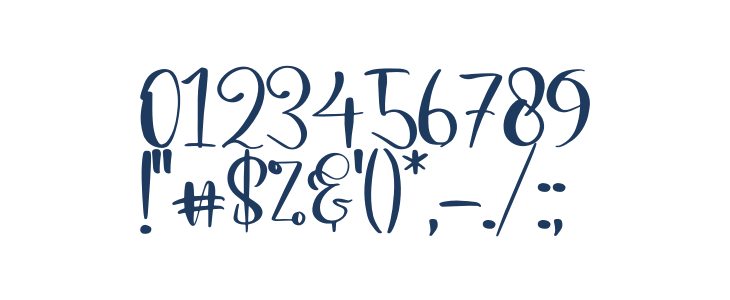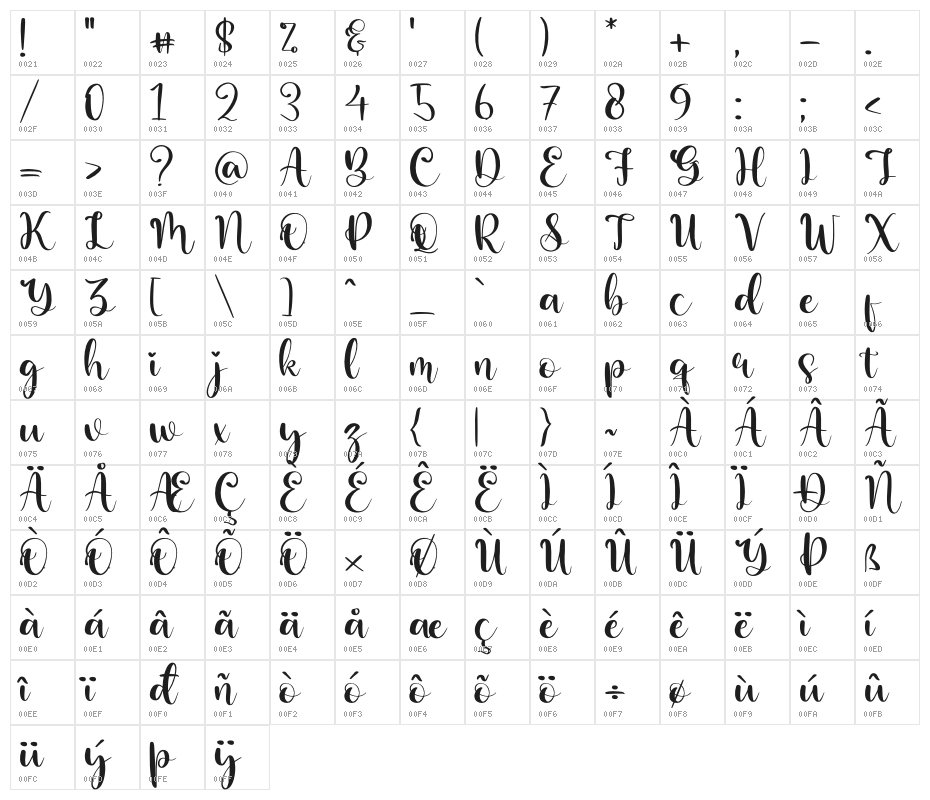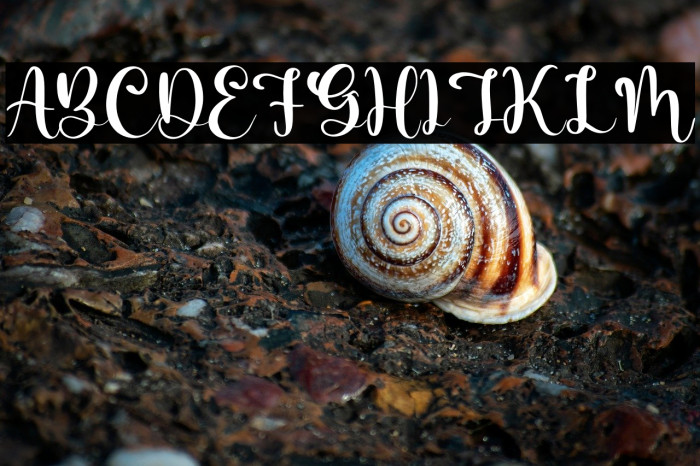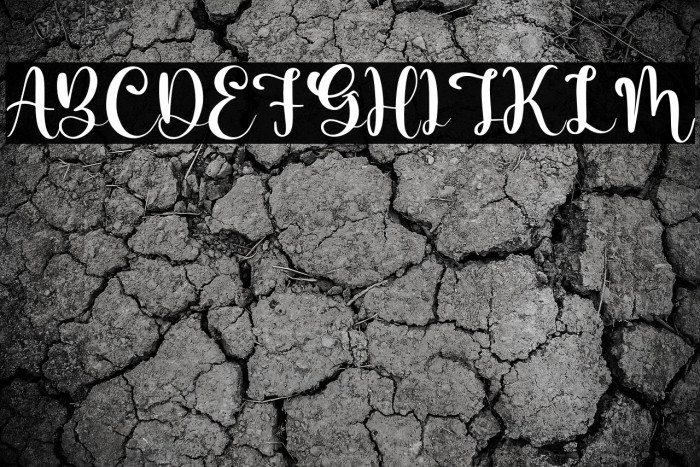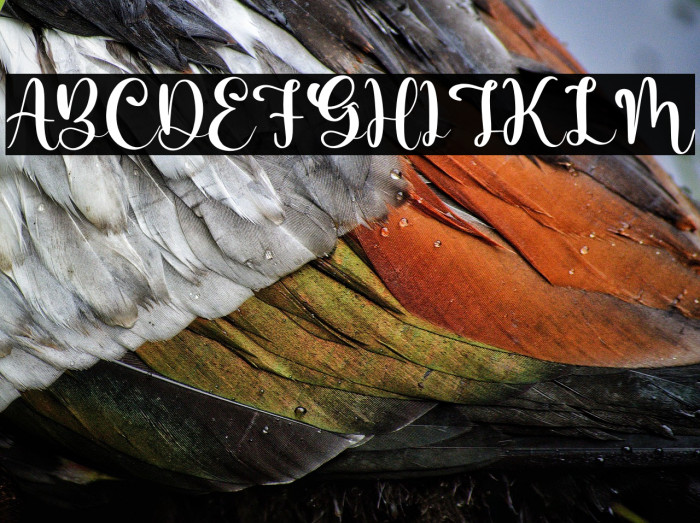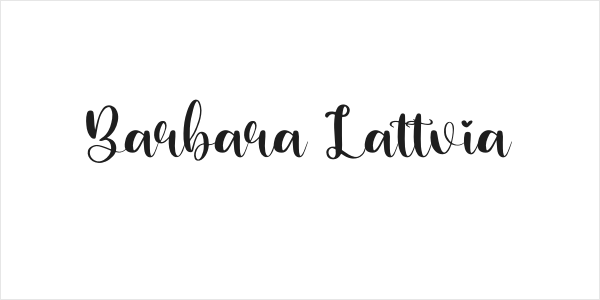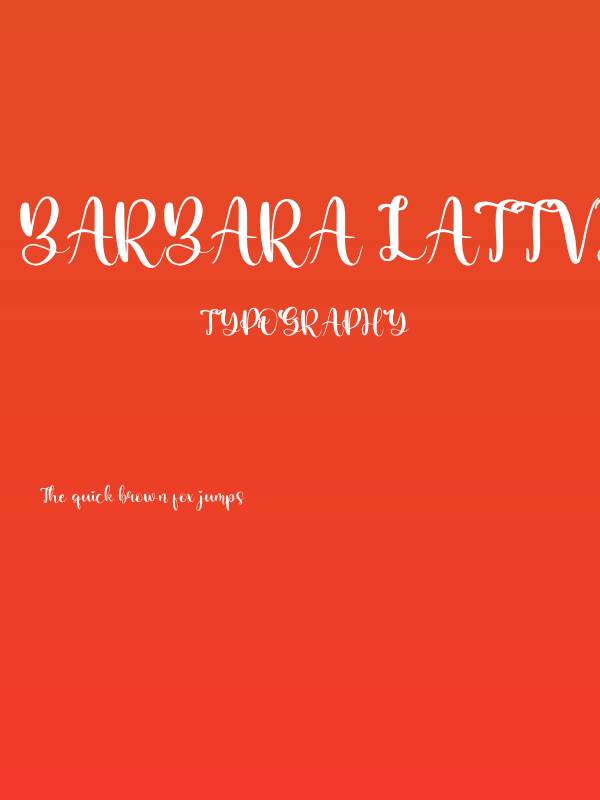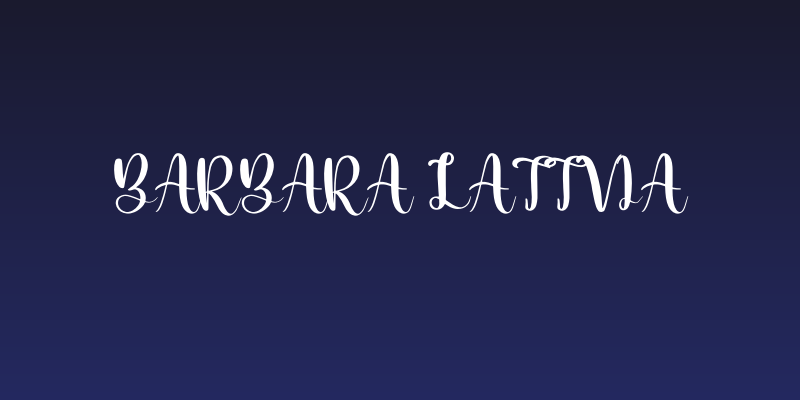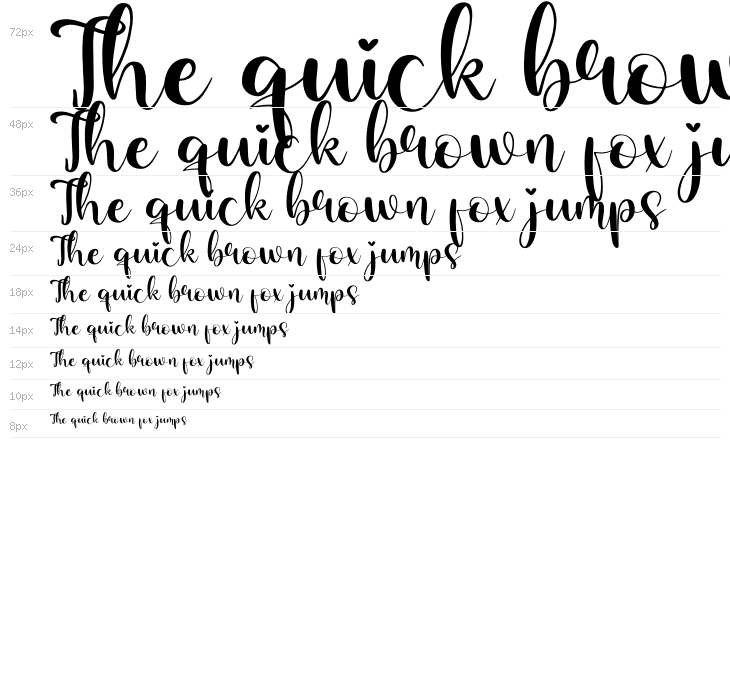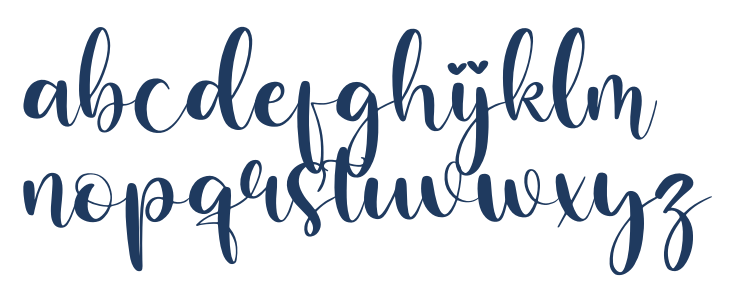
Barbara Lattvia Font
Barbara Lattvia Description
This elegant script font features a flowing, cursive style with a modern twist. The uppercase letters are bold and expressive, with intricate loops and swirls that add a touch of sophistication. The lowercase letters maintain a consistent flow, making them perfect for creating a seamless, handwritten look. The numerals are stylish and maintain the same cursive flair, ensuring consistency across all characters. Special characters are designed with the same attention to detail, making them suitable for various design needs. The overall appearance is both graceful and dynamic, making it ideal for projects that require a personal, artistic touch.